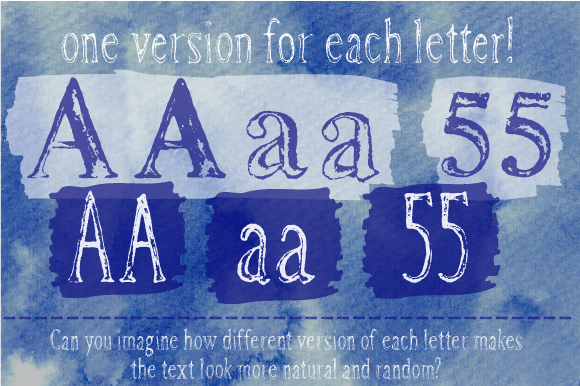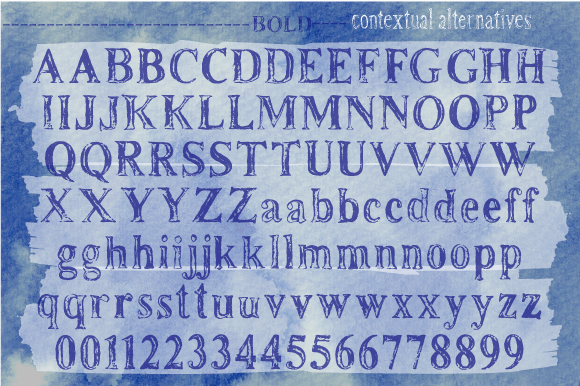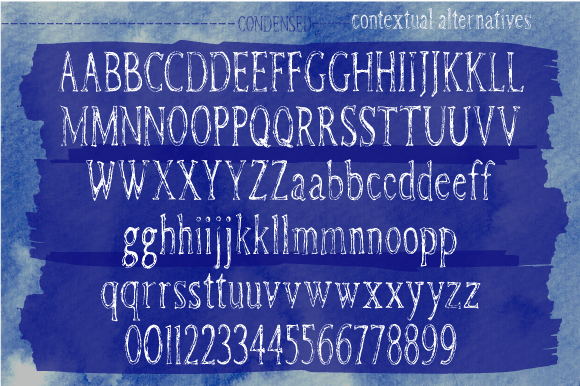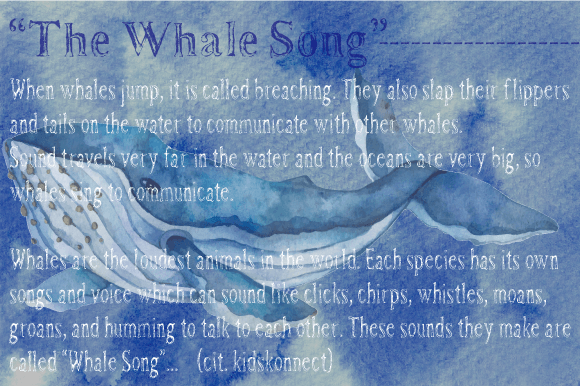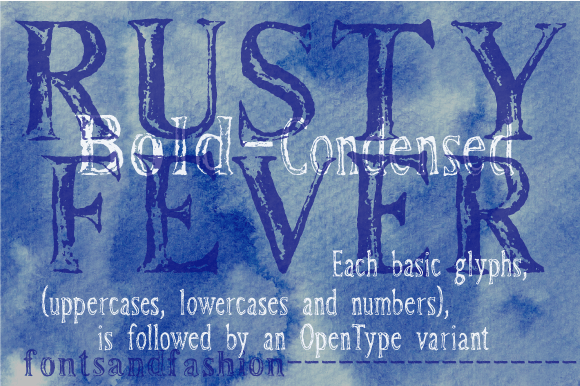
Rusty Fever
Rusty Fever: A Corroded and Atmospheric Slab Serif Font
Rusty Fever is a unique slab serif font that evokes the suggestive atmosphere of ocean depths and water erosion. Its corroded and rusted effect gives the font an oxidized appeal, emphasizing its irregular shape and creating a distinctive visual texture.
Key Features of Rusty Fever
• Slab Serif Design: Features distinctive serifs with a weathered, eroded appearance.
• Corroded Texture: Mimics the effects of rust and water erosion for a unique aesthetic.
• Irregular Shape: Emphasizes the font’s rustic and weathered character.
Ideal Uses for Rusty Fever
Rusty Fever’s unique characteristics make it particularly well-suited for:
When incorporating Rusty Fever into your designs, consider these tips:
• Use for headlines or short blocks of text to showcase its unique texture.
• Experiment with different sizes to highlight the font’s corroded features.
• Consider pairing with cleaner sans-serif fonts for body text to create contrast.
• Utilize its atmospheric quality to create designs that evoke a sense of age or weathering.
Rusty Fever is an excellent choice for designers looking to add a weathered and atmospheric slab serif font to their typographic toolkit. Its ability to evoke the depths of the ocean and the effects of water erosion makes it stand out in the world of typography. Whether you’re working on vintage-inspired branding, creating book covers with a maritime theme, or developing content that requires a touch of rustic charm, Rusty Fever offers the perfect blend of character and texture.
Furthermore, Rusty Fever’s unique design allows it to shine in various contexts where a worn, distressed look is desired. From album covers to adventure-themed websites, this font can elevate your projects with its distinctive style. Its corroded yet readable appearance works particularly well in designs that aim to convey a sense of history, exploration, or rugged authenticity.
In conclusion, Rusty Fever is a font that truly captures the essence of weathered beauty in typography. Its versatility across different themed applications showcases its adaptability to various creative needs. For those looking to add a touch of eroded charm to their work, Rusty Fever can enhance themed creations with its distinctive style. It’s the perfect choice for designers seeking to make a bold, textured impact across a wide range of creative projects.